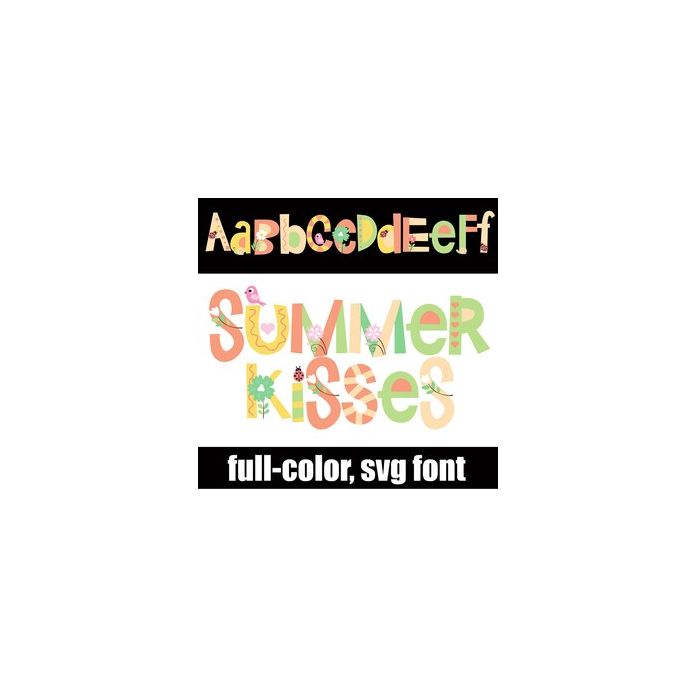
This full-color font features pastel yellows, green, and peach with summery flowers and bugs. There is an alt case w/ additional colors you can access through your system or Silhouette's glyph map.